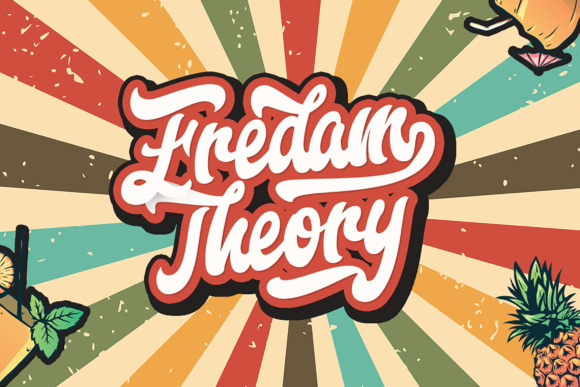
Unleash your creativity with Fredam Theory, the script font that evokes nostalgia and exudes personality. Step into a world where the past and present harmoniously blend, creating a uniquely expressive typographic experience. Fredam Theory, inspired by the vibrant 80s, captures the essence of retro charm while embracing a contemporary twist.
With its bold strokes and groovy undertones, Fredam Theory dances across your designs, adding a touch of playfulness and energy. Its unique design aesthetic, a fusion of classic retro and modern flair, ensures that your projects radiate a timeless appeal.
Transport yourself to the dynamic era of the 80s, where fashion, music, and art converged to create an unforgettable cultural landscape. Fredam Theory encapsulates that spirit, offering a font that is both trendy and vintage, resonating with the boldness of the past and the vibrancy of the present.
Fredam Theory isn't just a font, it's a journey through time, a celebration of the past while embracing the future. It's a font that speaks to the retro enthusiasts, the trendsetters, and the visionaries.
Step into the world of Fredam Theory and let your creativity run wild. Create designs that resonate with the past while embracing the future. Experience the magic of a font that is both nostalgic and innovative, a font that will make your projects shine with originality.